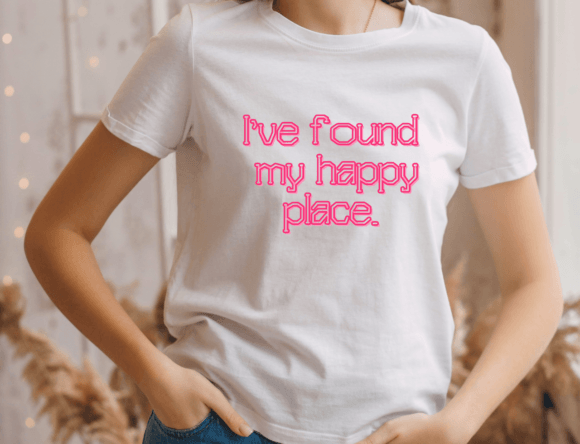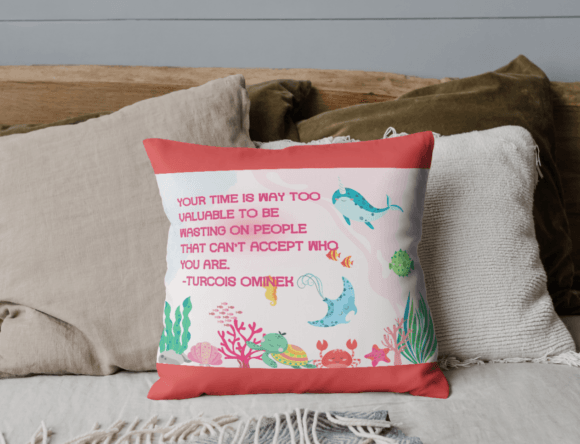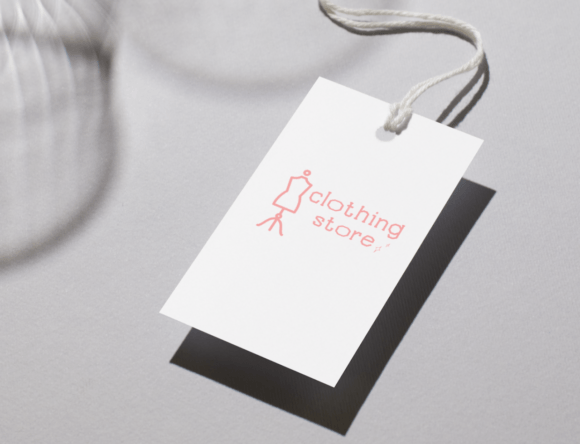
Introduction to Nathrach Font Font
Fonts play a crucial role in design, and the Nathrach Font font is a typeface that brings both character and versatility to any project. Whether you’re working on a branding project, a website, or a print design, the Nathrach Font font offers a unique style that can elevate your work.
Natrach is a sweet and friendly handwritten font.
Key Features of Nathrach Font Font
Why Choose Nathrach Font Font?
The Nathrach Font font is more than just a typeface – it’s a design tool that helps you communicate your message with style and clarity. Its unique character set and versatile design make it suitable for a wide range of applications, from elegant invitations to bold headlines.
With its carefully crafted letterforms and balanced proportions, the Nathrach Font font ensures readability and visual appeal across all mediums.
What makes Nathrach Font font special?
The Nathrach Font font stands out with its unique design, exceptional readability, and versatility across various design applications.